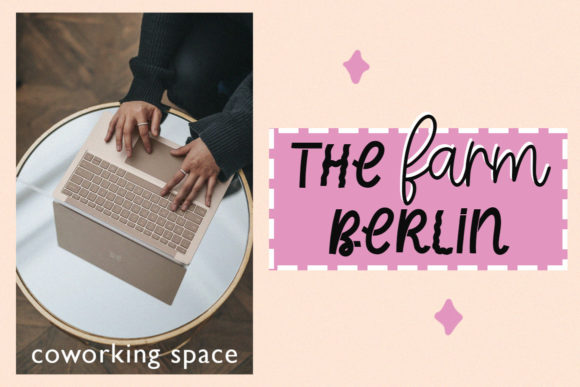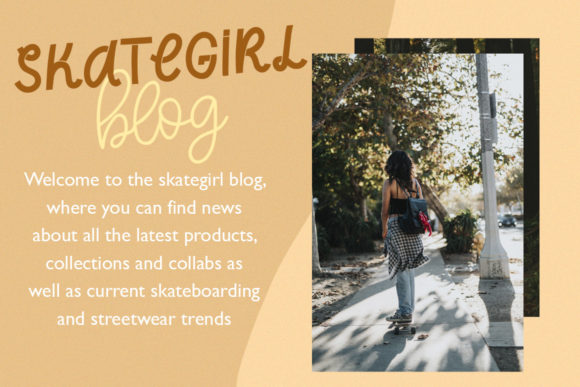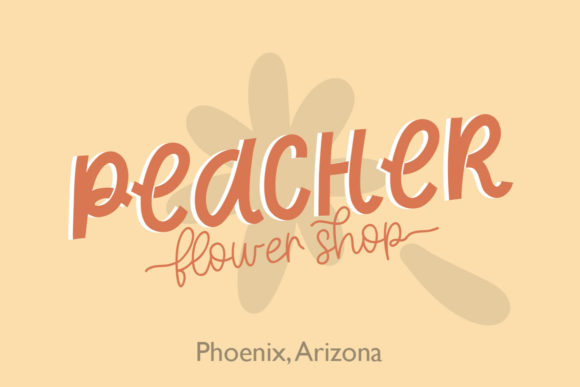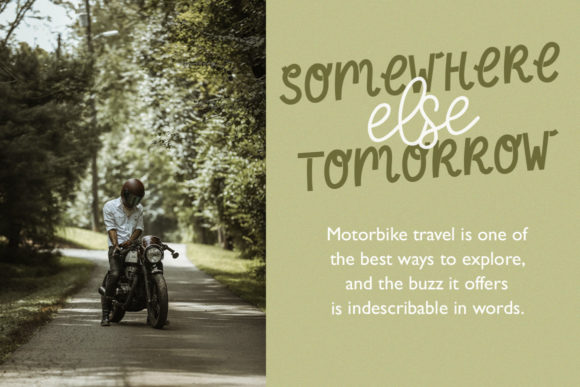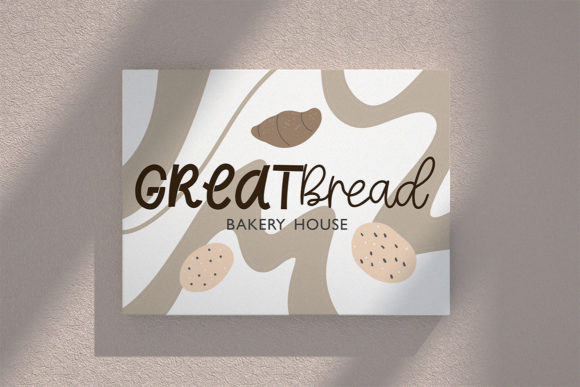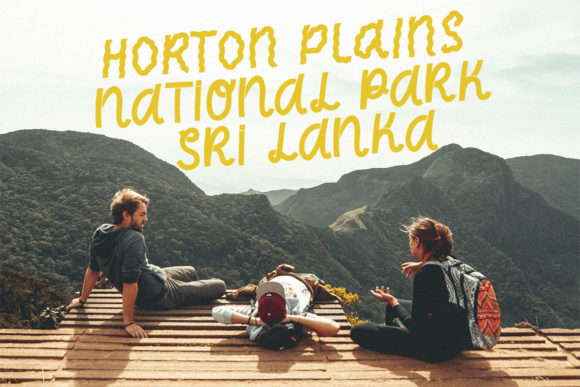
Introducing April Sunset Font: The Perfect Duo for Your Creative Projects
Are you on the hunt for a font that can add a touch of fun, cuteness, and jollity to your designs? Look no further than the April Sunset Font! This modern and sweet font is a duo set, consisting of a display font and a handwritten font, making it incredibly versatile for a wide range of creative projects.
What Makes April Sunset Font So Special?
April Sunset Font is a unique and charming font that can instantly elevate your designs. Its modern and sweet style makes it perfect for casual designs, such as:
- T-shirts and apparel
- Birthday invitations and party decorations
- Sublimation designs for mugs, tumblers, and more
Whether you’re a designer, crafter, or DIY enthusiast, April Sunset Font is an excellent addition to your font collection.
Key Features of April Sunset Font
Here are some key features that make April Sunset Font stand out:
- Duo Font Set: April Sunset Font comes with two fonts in one: a display font and a handwritten font. This allows you to mix and match the fonts to create unique and interesting combinations.
- Modern and Sweet Style: The font has a modern and sweet style that is perfect for casual designs.
- Easily Readable: The font is easily readable, making it perfect for designs that require a clear and concise message.
How to Use April Sunset Font in Your Designs
Using April Sunset Font in your designs is easy! Here are some tips to get you started:
- Pair the Fonts: Experiment with pairing the display font with the handwritten font to create interesting and unique combinations.
- Experiment with Colors: April Sunset Font looks great in a variety of colors, so don’t be afraid to experiment and find the perfect color scheme for your design.
- Use for Various Projects: Use April Sunset Font for a wide range of projects, from t-shirts and branding to birthday invitations and sublimation designs.
Why Designers and Crafters Love April Sunset Font
Designers and crafters love April Sunset Font for many reasons:
- Unique and Eye-Catching: The font is unique and eye-catching, making it perfect for designs that need to stand out.
- Easily Customizable: The font is easily customizable, allowing designers and crafters to adjust the font to fit their design needs.
- Time-Saving: April Sunset Font saves designers and crafters time, as they can quickly and easily create professional-looking designs.
- Fun and Creative: The font is fun and creative, making it perfect for designers and crafters who want to add a touch of personality to their designs.
In conclusion, April Sunset Font is a fun, cute, and jolly duo font that is perfect for designers and crafters looking to add a touch of modern sweetness to their designs. With its unique and eye-catching style, high-quality files, and easily readable design, April Sunset Font is an excellent addition to any font collection. Whether you’re creating t-shirts, branding, birthday invitations, or sublimation designs, April Sunset Font is the perfect choice.